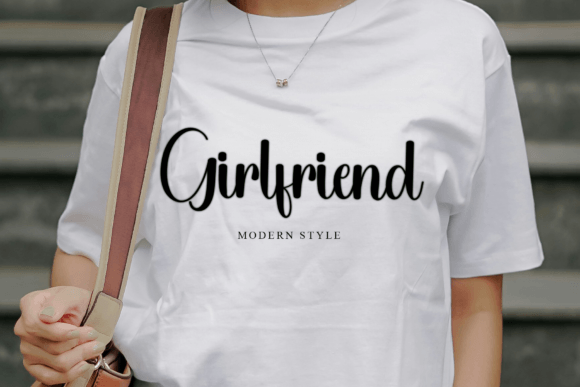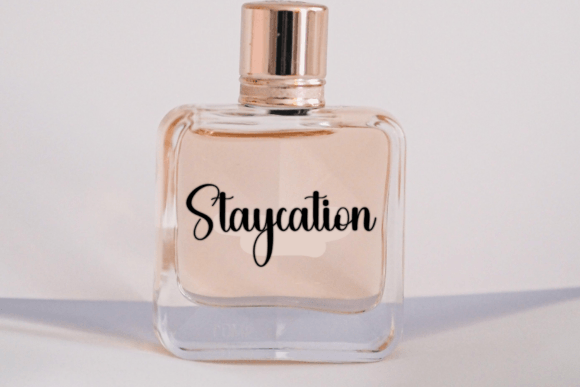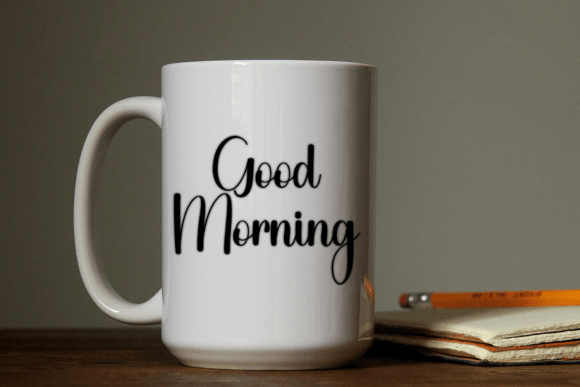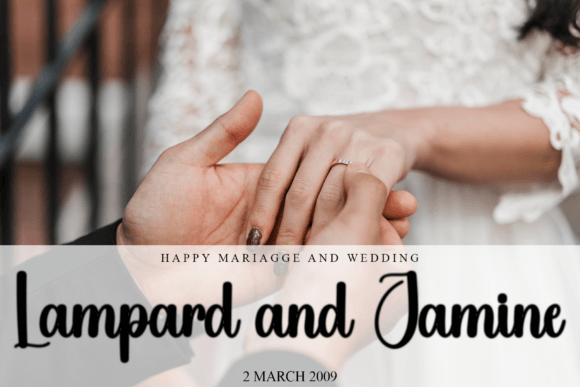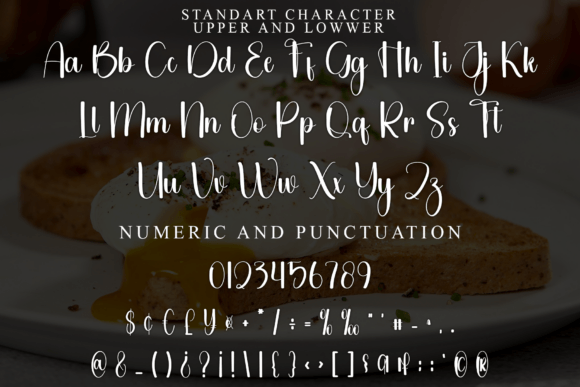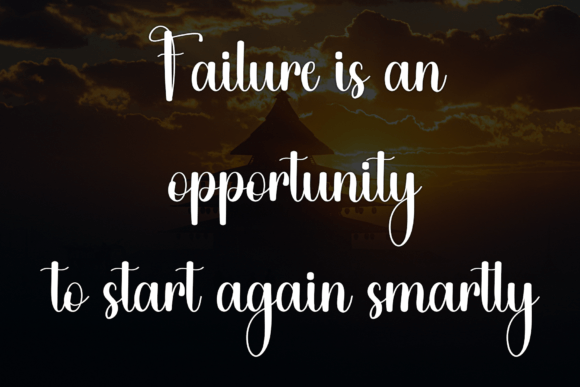
Introducing Birthday Font: The Perfect Choice for Adding a Personal Touch
Are you looking for a font that can add a warm and friendly touch to your designs? Look no further than Birthday Font! This casual handwritten font is designed to exude warmth and friendliness, making it perfect for personal projects, invitations, and social media graphics.
The Characteristics of Birthday Font
Birthday Font is a beautifully crafted font that features rounded, playful strokes that give it a relaxed and approachable feel. The font’s charming, hand-drawn aesthetic adds a delightful, whimsical touch to any design, making it perfect for those who want to add a personal touch to their work.
One of the standout features of Birthday Font is its unique blend of playfulness and sophistication. The font’s rounded edges and flowing strokes give it a friendly and approachable feel, while its elegant lettering makes it suitable for a wide range of design applications.
Why Choose Birthday Font?
So why should you choose Birthday Font for your next design project? Here are just a few reasons why this font stands out:
- Warm and Friendly: Birthday Font is designed to exude warmth and friendliness, making it perfect for personal projects and invitations.
- Playful and Whimsical: The font’s rounded, playful strokes add a delightful, whimsical touch to any design.
- Versatile: Birthday Font is suitable for a wide range of design applications, from social media graphics to party invitations.
- Easy to Read: The font’s clear and elegant lettering makes it easy to read, even at small sizes.
Using Birthday Font in Your Designs
Birthday Font is incredibly versatile, and can be used in a wide range of design applications. Here are a few ideas to get you started:
- Party Invitations: Use Birthday Font to create custom party invitations that set the tone for a fun and festive celebration.
- Social Media Graphics: Add a personal touch to your social media graphics with Birthday Font, perfect for creating engaging and shareable content.
- Personal Projects: Use Birthday Font to add a warm and friendly touch to your personal projects, such as photo albums or scrapbooking.
Tips for Getting the Most Out of Birthday Font
Here are a few tips for getting the most out of Birthday Font:
- Experiment with Colors: Birthday Font looks great in a wide range of colors, so don’t be afraid to experiment and find the perfect hue for your design.
- Mix and Match: Try pairing Birthday Font with other fonts to create a unique and eye-catching design.
- Play with Size: Birthday Font looks great at a wide range of sizes, so don’t be afraid to experiment with different font sizes to add visual interest to your design.
In conclusion, Birthday Font is a unique and versatile font that is perfect for adding a personal touch to your designs. Its warm and friendly aesthetic makes it perfect for personal projects, invitations, and social media graphics, while its playful and whimsical strokes add a delightful touch to any design. Whether you’re a designer or crafter, Birthday Font is a great choice for anyone looking to add a little extra something to their work.